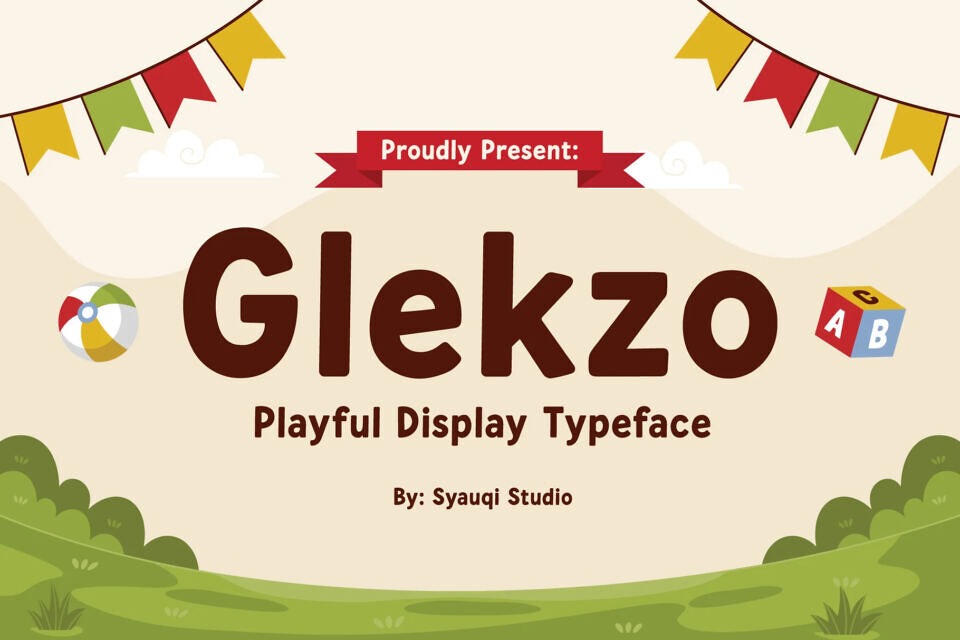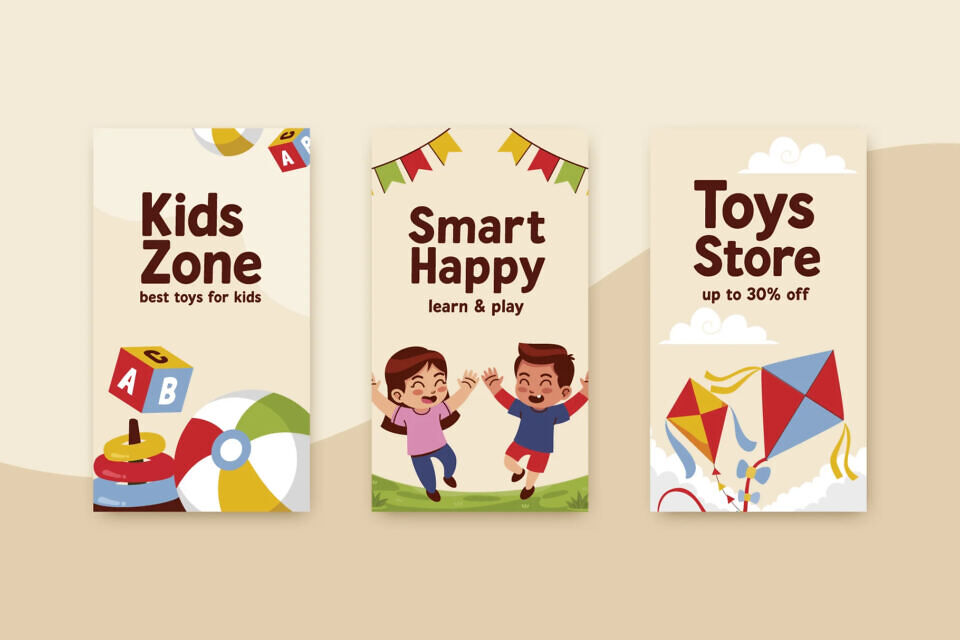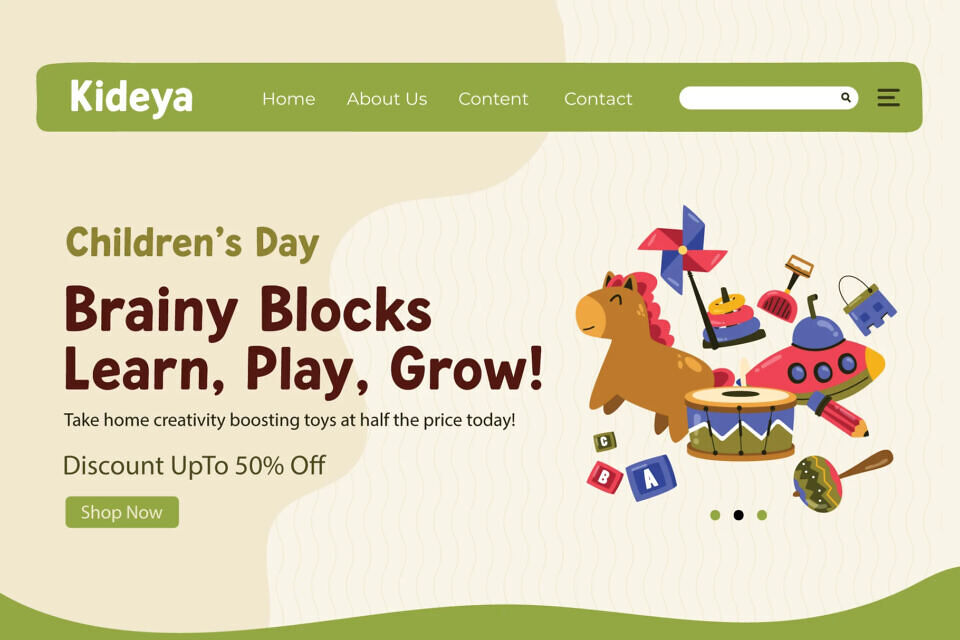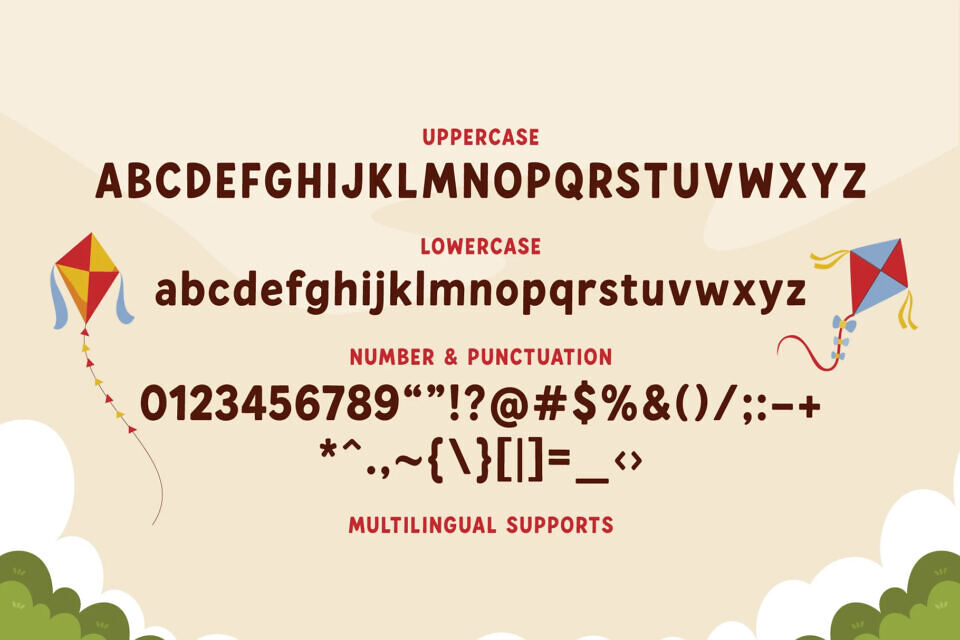
Glekzo is a playful display typeface designed to add energy, personality, and fun to your designs. With bold curves, unique shapes, and a friendly rhythm, Glekzo creates a cheerful and eye-catching look that immediately draws attention.
Glekzo works perfectly for children’s branding, product packaging, creative posters, social media graphics, editorial headlines, apps, stickers, and any project that needs a playful personality.